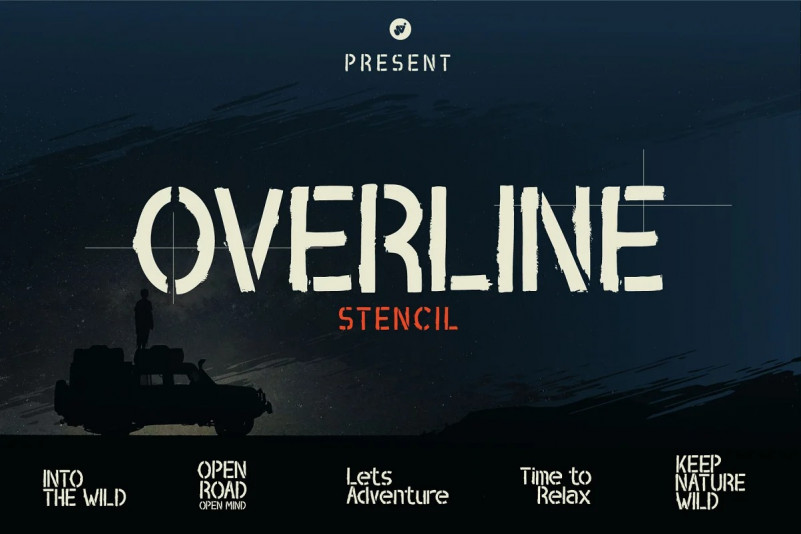
Overline Font
Overline Stencil font is perfect for your up coming projects. Such as logo branding, editorial design, fashion, stationery design, sport design, blog design, modern advertising design, card invitation, art quote, home decor, book/cover title, special events and any more.